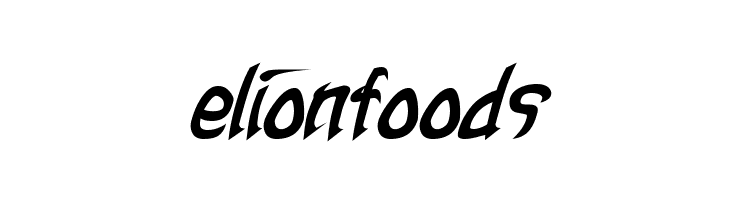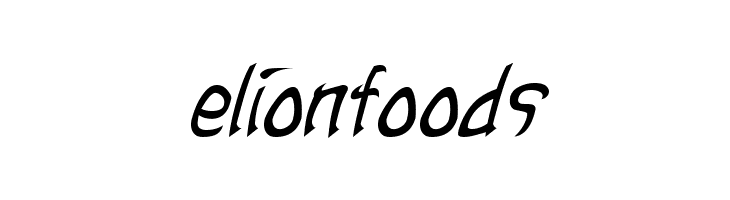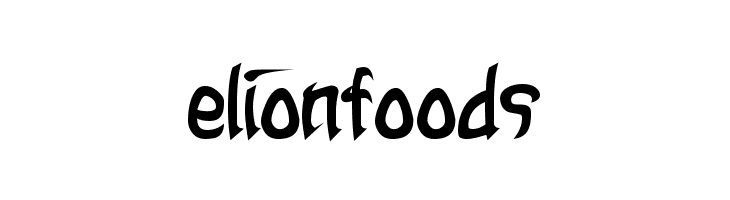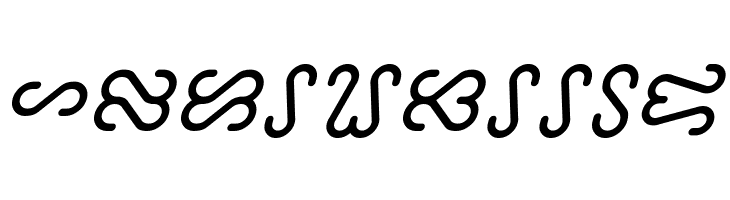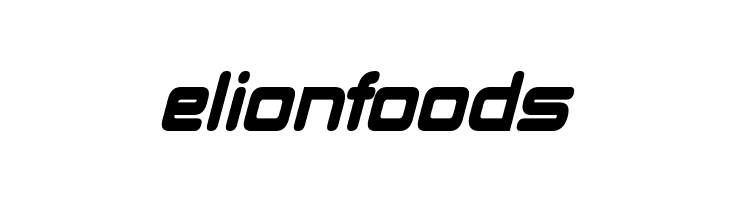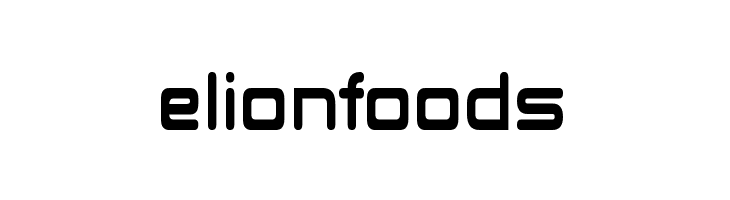
• Cardosan
A bold, angular font with a hand-carved, ancient script style.
• Cardosan Bold
A bold, angular font with a geometric and modern style.
• Taibaijan Bold Italic
A bold, italicized font with dynamic, flowing characters and strong slant.
• Taibaijan Italic
A bold, italic font with dynamic strokes and a modern, artistic flair.
• Taibaijan Bold
A bold, brush-like font with a dynamic, calligraphic style.
• Ophidian Italic
A decorative font with serpentine, flowing curves and bold strokes.
• Ophidian Bold Italic
A bold, italic font with serpentine, decorative characters.
• Ophidian Bold
A bold, decorative font with interconnected loops and curves, ideal for creative display use.
• Classic Robot Condensed Bold Italic
A futuristic, bold, and italicized font with a condensed, modern design.
• Classic Robot Condensed
A futuristic, condensed font with rounded edges and a mechanical aesthetic.